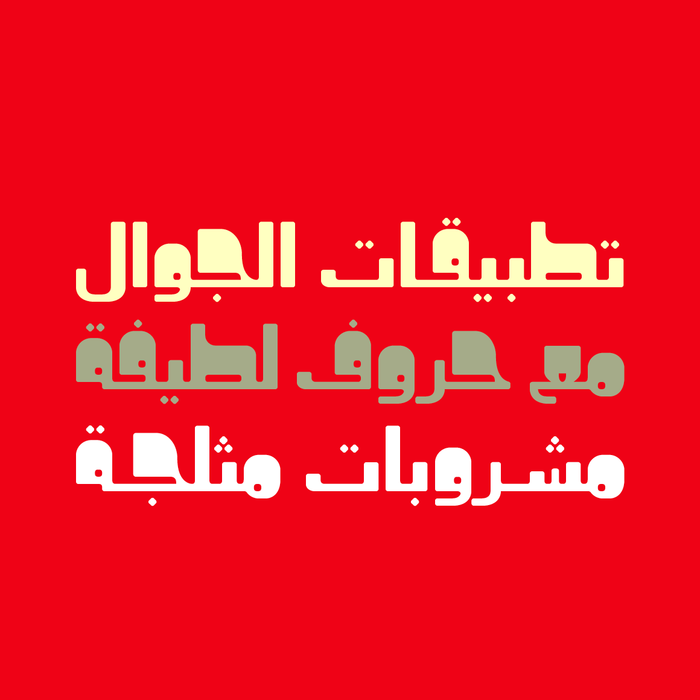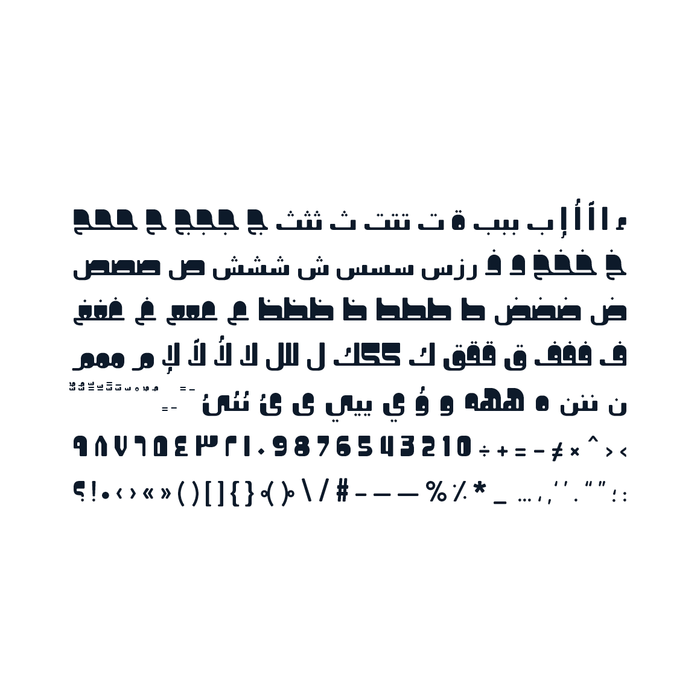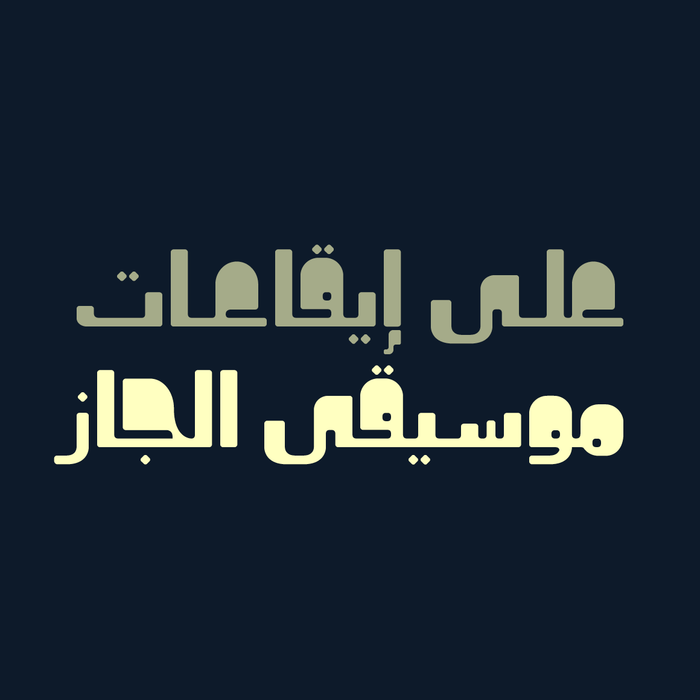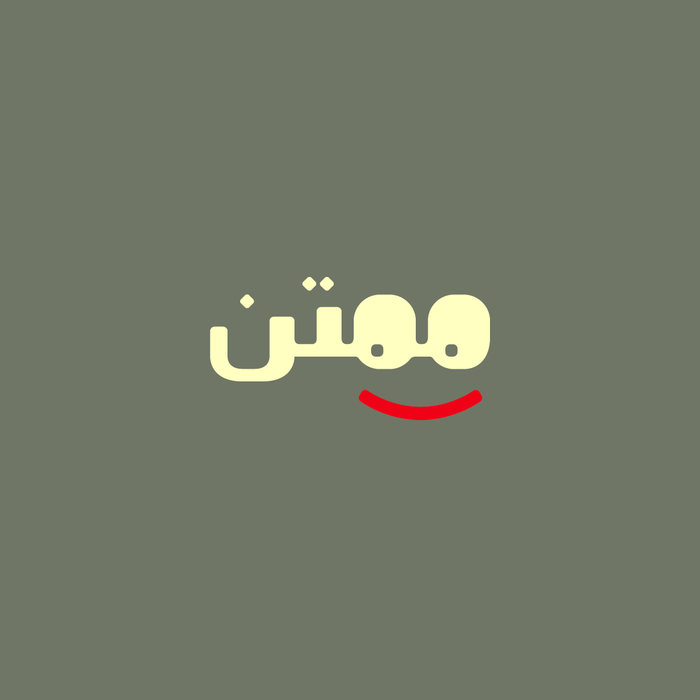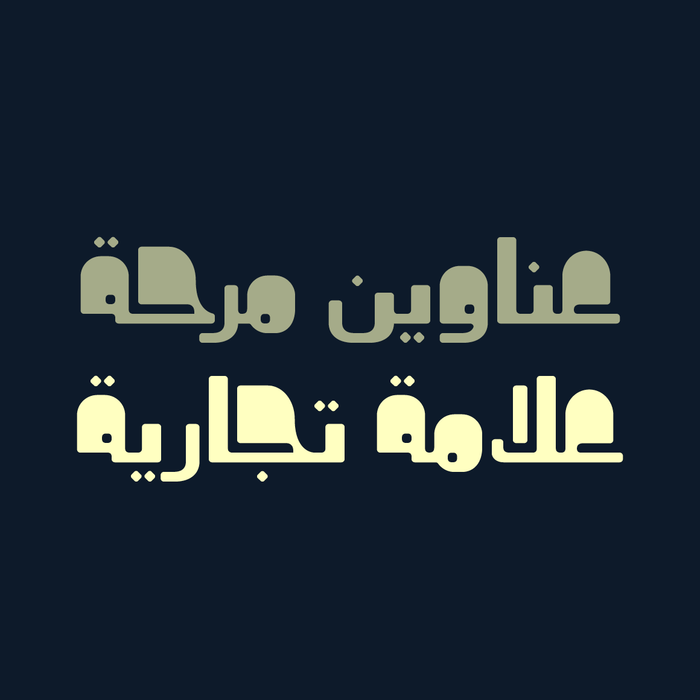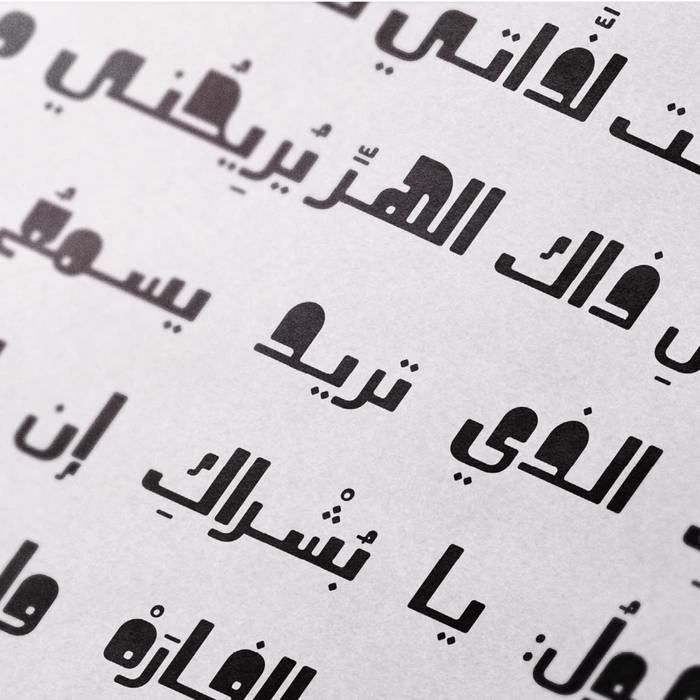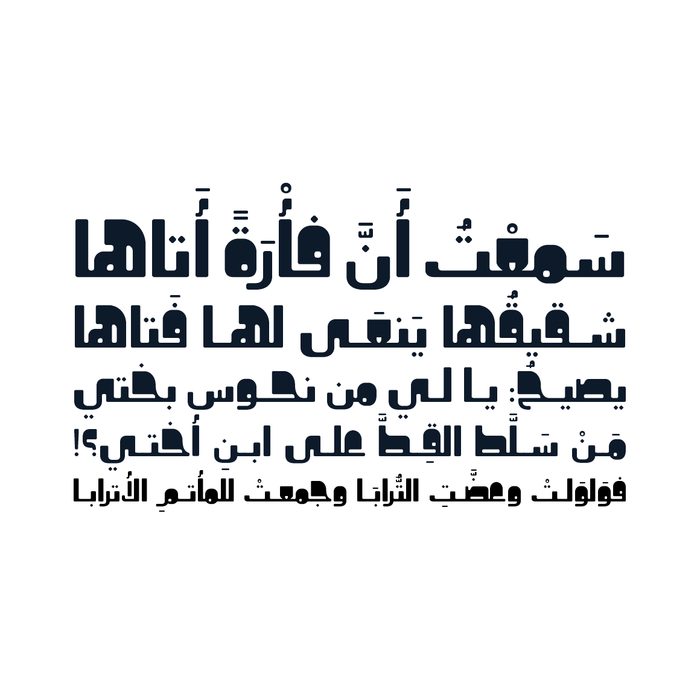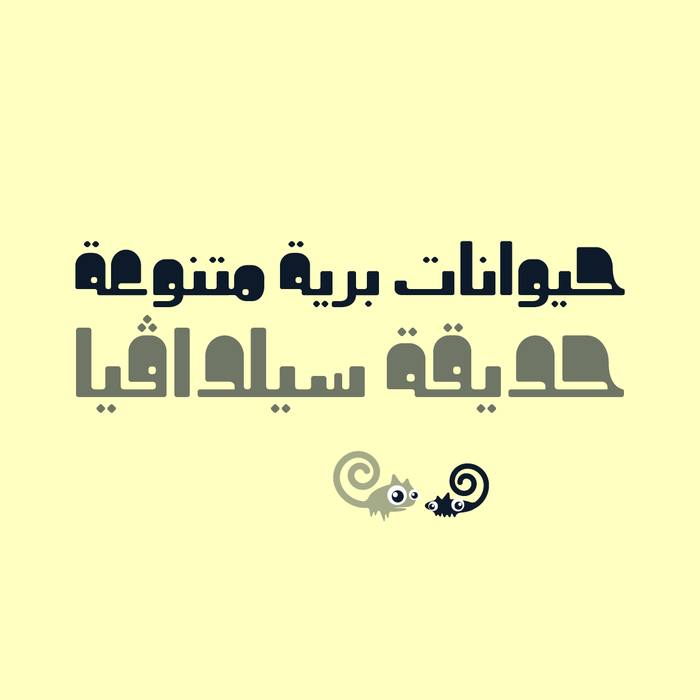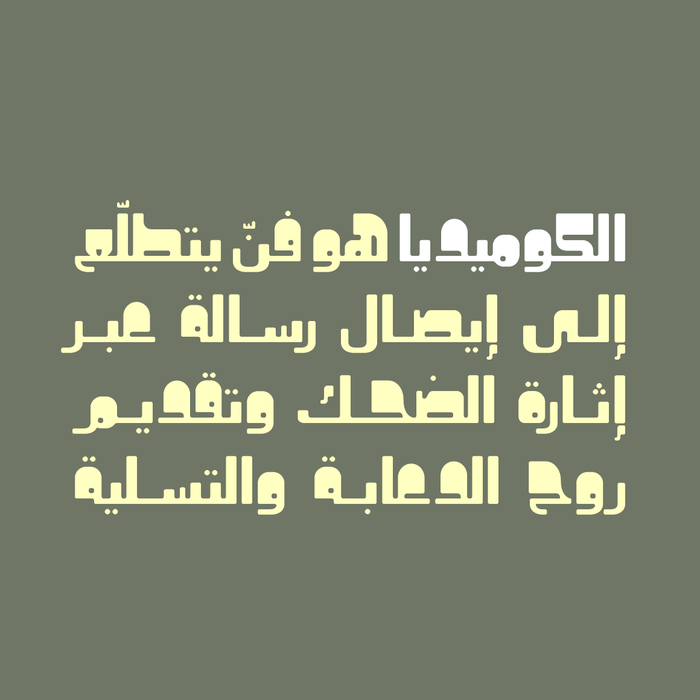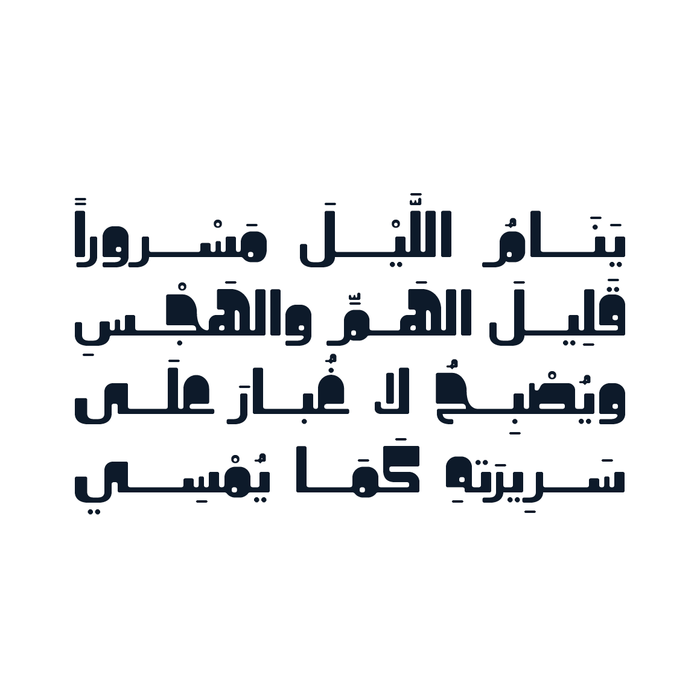
Khorafi - Arabic Font
Khorafi (which is the Arabic word for Mythical) is an Arabic display font that features comic and contrastive letterforms. Khorafi is suitable for various range of applications including print, web design and mobile applications.